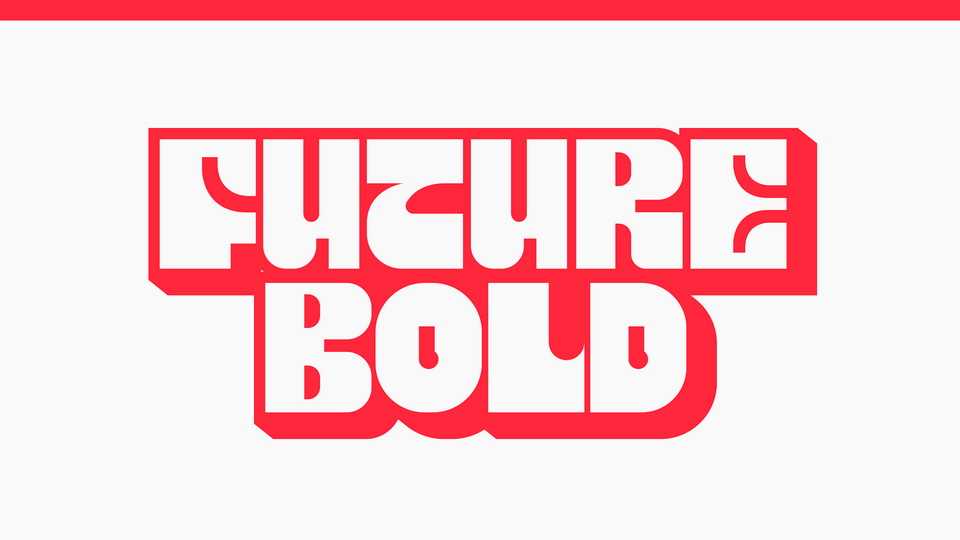
Download Future Bold font, an extremely heavy weight display typeface with many unique characters. Future Bold is perfect for big titles, advertising, labelling, packaging and anything that needs a big impactful typeface.
Designer: Dishant Mehlawat